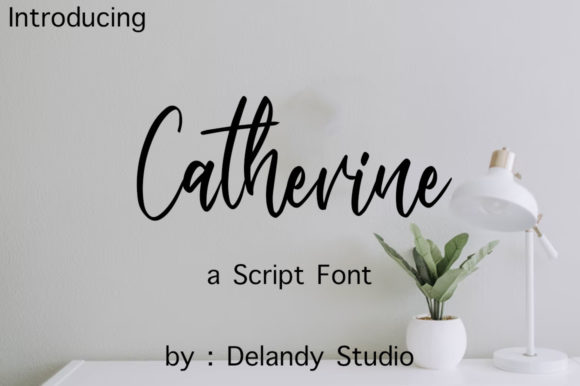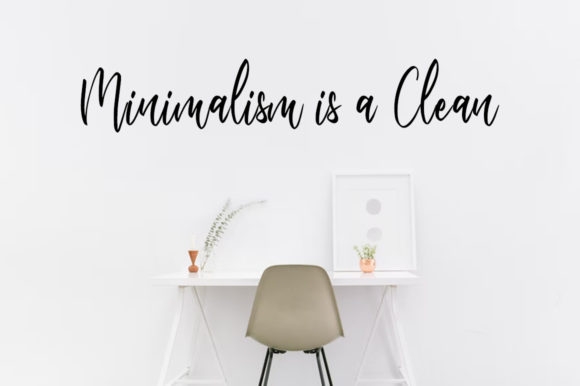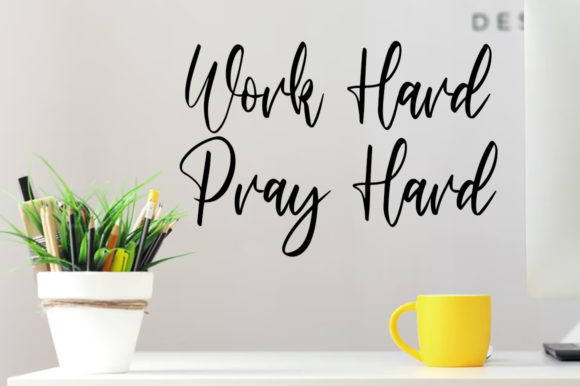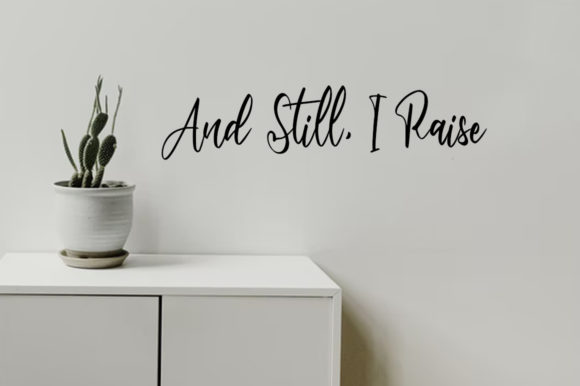
Catherine Font
About Catherine Font
Catherine is a relaxed, trendy script font, featuring a delicate flow. Add this romantic and lovely looking font to each of your love letters, wedding invitations or favorite design ideas, and you will be astounded by the outcome.